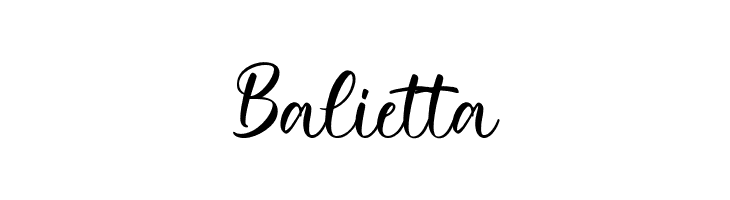
A playful, handwritten font with smooth curves and a casual style.
An elegant, flowing script font with a handwritten style.
A modern, elegant handwritten font with a flowing style.
A lively and flowing script font with elegant, cursive letterforms.